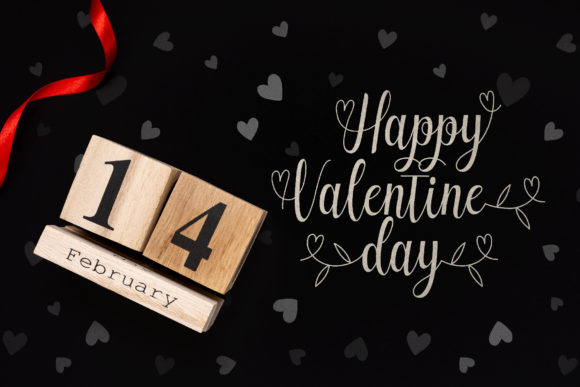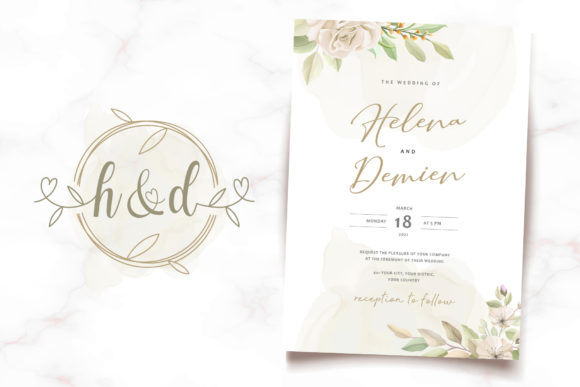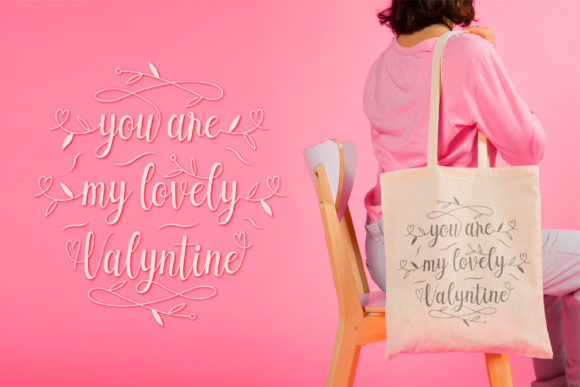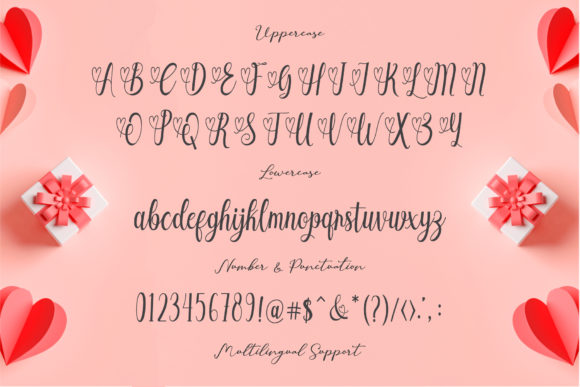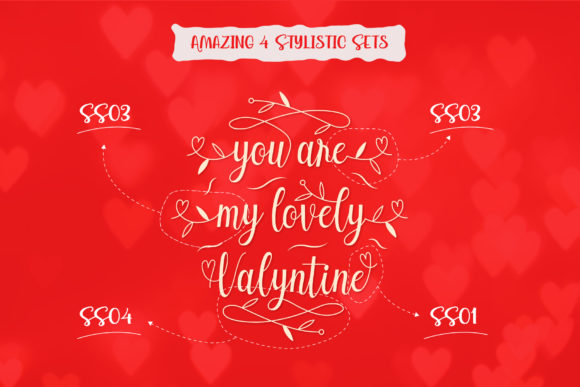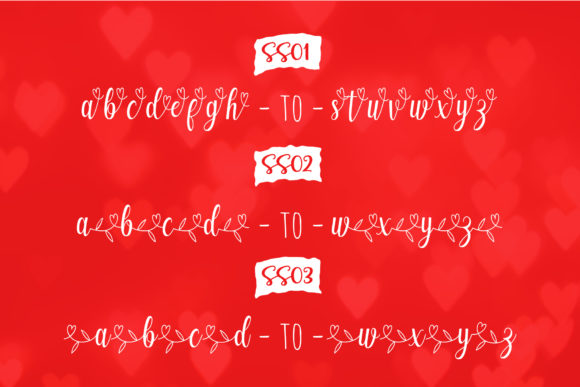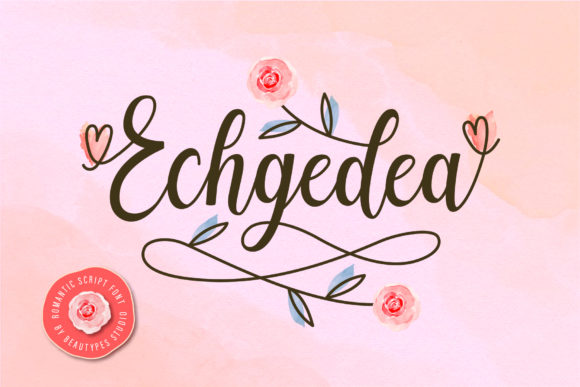
Echgedea Font: Elevate Your Designs with a Touch of Romance and Elegance
In the world of typography, fonts play a crucial role in conveying the tone and aesthetic of a design. For those seeking a romantic and dreamy touch, the Echgedea font is an exquisite choice. This beautiful script font is designed to add a delicate and classy look to your projects, making it perfect for designers and crafters aiming to create stunning visual content.
The Charm of Echgedea
Echgedea is characterized by its balanced and varied strokes, which are neither too thin nor too thick. This balance gives the font a unique elegance, suitable for a wide range of design applications, from wedding invitations and romantic quotes to fashion branding and luxury product packaging. The font’s versatility ensures that it can be used in various contexts without losing its charm.
One of the standout features of Echgedea is its PUA (Private Use Area) encoding. This means that users can access all the glyphs and swashes easily, allowing for greater creativity and flexibility in design. PUA encoding enables designers to explore a wide range of typographic variations, making it simpler to customize and enhance their projects. Whether you’re looking to add a personal touch or create a distinctive brand identity, Echgedea’s encoding makes it straightforward to do so.
Ideal for Various Design Projects
Echgedea’s romantic and dreamy aesthetic makes it an ideal choice for a variety of design projects. Here are a few ways designers and crafters can utilize this beautiful font:
- Wedding and Event Planning: Create stunning wedding invitations, save-the-date cards, and event banners that set the tone for a romantic and memorable occasion.
- Branding and Packaging: Elevate your brand with a touch of elegance. Echgedea is perfect for luxury brands, fashion labels, and beauty products looking for a sophisticated and classy image.
- Social Media Graphics: Enhance your social media presence with beautiful quotes, announcements, and promotional materials that capture the essence of your message.
- Stationery and Paper Goods: Design personalized stationery, journals, and greeting cards that stand out with Echgedea’s unique charm.
Tips for Using Echgedea Effectively
To make the most of Echgedea’s beauty, consider the following tips:
- Pair with Complementary Fonts: Combine Echgedea with simpler, sans-serif fonts for body text to create a harmonious contrast that enhances readability and visual appeal.
- Experiment with Swashes: Take advantage of Echgedea’s swashes to add flair to your designs. Swashes can be used to create beautiful connections between words or to add decorative touches.
- Adjust Size and Color: Play with the size and color of Echgedea to fit your design’s hierarchy and mood. The font’s versatility allows it to shine in various sizes and colors.
Echgedea is more than just a font; it’s a design element that can transform your projects with its romantic and dreamy aesthetic. Its delicate yet classy look, combined with PUA encoding for easy access to glyphs and swashes, makes it a valuable asset for designers and crafters. Whether you’re creating wedding invitations, branding materials, or social media graphics, Echgedea offers the elegance and versatility needed to make your designs stand out. Embrace the beauty of Echgedea and elevate your designs to new heights of sophistication and charm.